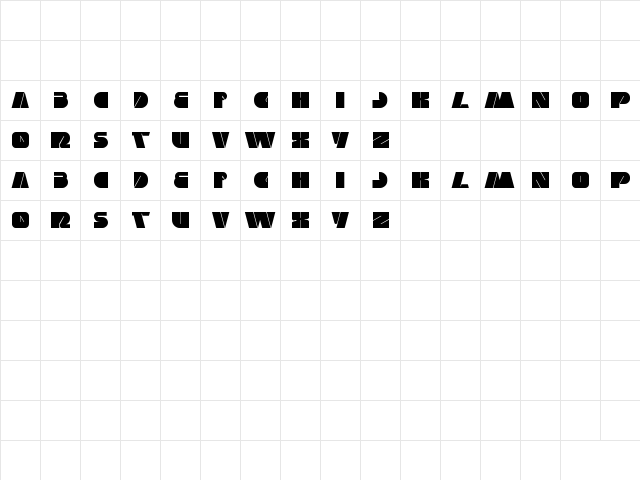
monster rock Regular Font Preview
monster rock Regular
monster rock Regular Font Details
Design Context for monster rock Typeface
monster rock is a composed and adaptable typeface that performs quietly and consistently across a wide range of design contexts.